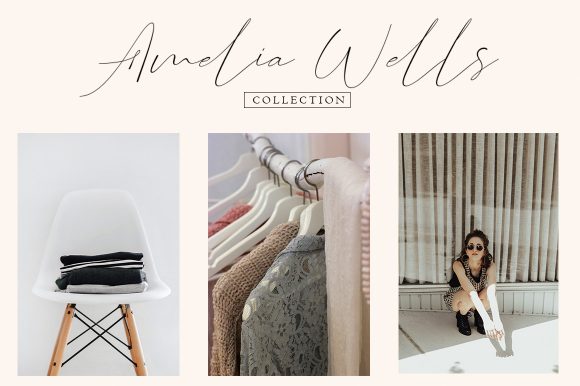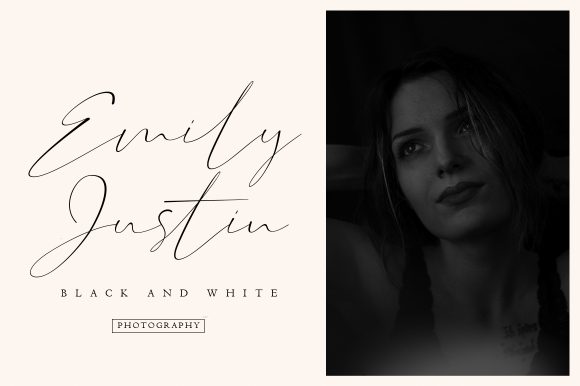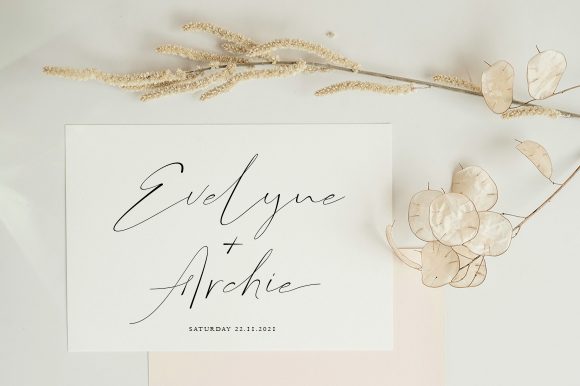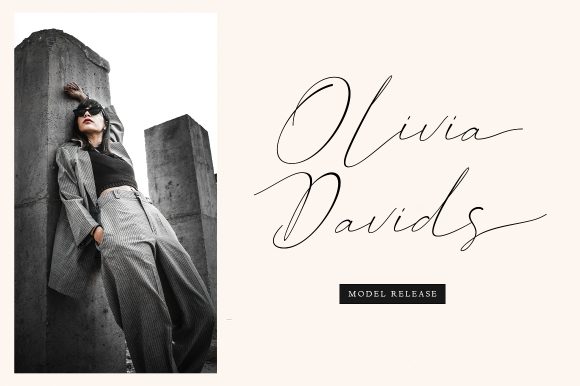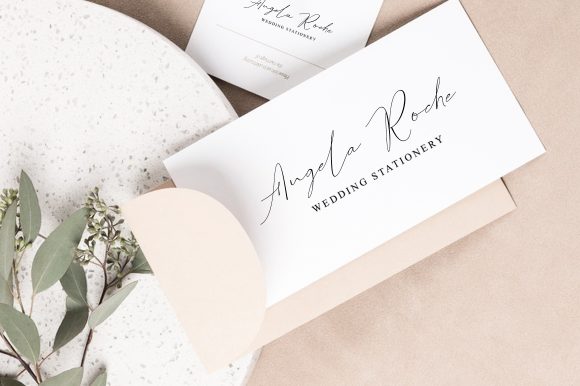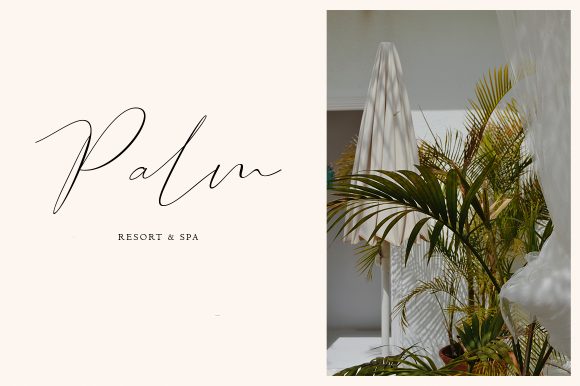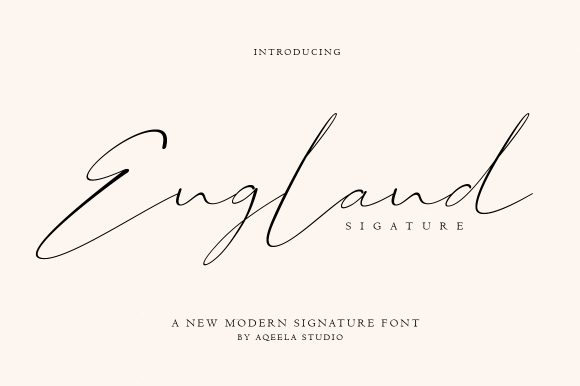
Discover the Charm of England Font: Elevate Your Designs with a Fresh and Modern Handwritten Style
Are you on the hunt for a font that can add a touch of elegance and sophistication to your designs? Look no further than the England Font. This beautiful signature font boasts a fresh, modern, and natural handwritten style that is sure to make your designs stand out from the crowd. With its versatility and unique charm, England Font is perfect for designers and crafters looking to add a distinctive touch to their work.
The Characteristics of England Font
England Font is a carefully crafted font that showcases a beautiful, handwritten style. Its fresh and modern approach makes it perfect for a wide range of design applications, from branding and logos to signage and packaging. The font’s natural, flowing lines give it a sense of elegance and sophistication, making it ideal for designers looking to create high-end designs.
One of the standout features of England Font is its versatility. The font comes with several alternatives that allow you to create a range of different looks and styles. Whether you’re looking to create a feminine and delicate logo or a bold and masculine one, England Font has got you covered. Additionally, the font includes a few markings that can be used to add rigidity to the signature, creating a beautiful bond that accentuates the natural feel of the handwriting.
Perfect for Branding and Logo Design
England Font is a perfect choice for branding and logo design. Its unique and distinctive style makes it easy to create a memorable and recognizable brand identity. The font’s versatility also makes it easy to experiment with different styles and variations, allowing you to find the perfect look for your brand.
Whether you’re looking to create a logo for a new business or rebrand an existing one, England Font is a great choice. The font’s modern and fresh approach will help your brand stand out in a crowded market, while its elegant and sophisticated style will ensure that your brand is taken seriously.
Why Designers and Crafters Love England Font
England Font has quickly become a favorite among designers and crafters. Its unique style and versatility make it a great choice for a wide range of design applications. Here are just a few reasons why designers and crafters love England Font:
- Unique and distinctive style: England Font’s fresh and modern approach makes it stand out from other fonts.
- Versatility: The font comes with several alternatives and markings, making it easy to experiment with different styles and variations.
- Elegant and sophisticated: England Font’s natural, flowing lines give it a sense of elegance and sophistication.
- Perfect for branding and logo design: The font’s unique style and versatility make it a great choice for creating a memorable and recognizable brand identity.
Tips for Using England Font in Your Designs
Here are a few tips for using England Font in your designs:
- Experiment with different styles and variations: England Font comes with several alternatives and markings, so don’t be afraid to experiment and find the perfect look for your design.
- Use it for branding and logo design: England Font is perfect for creating a memorable and recognizable brand identity.
- Pair it with other fonts: England Font can be paired with other fonts to create a unique and interesting look.
- Use it for signage and packaging: The font’s natural, flowing lines make it perfect for signage and packaging design.
England Font is a beautiful signature font that boasts a fresh, modern, and natural handwritten style. Its versatility and unique charm make it perfect for designers and crafters looking to add a distinctive touch to their work. Whether you’re looking to create a logo, brand identity, or signage, England Font is a great choice. So why not give it a try and see how it can elevate your designs?